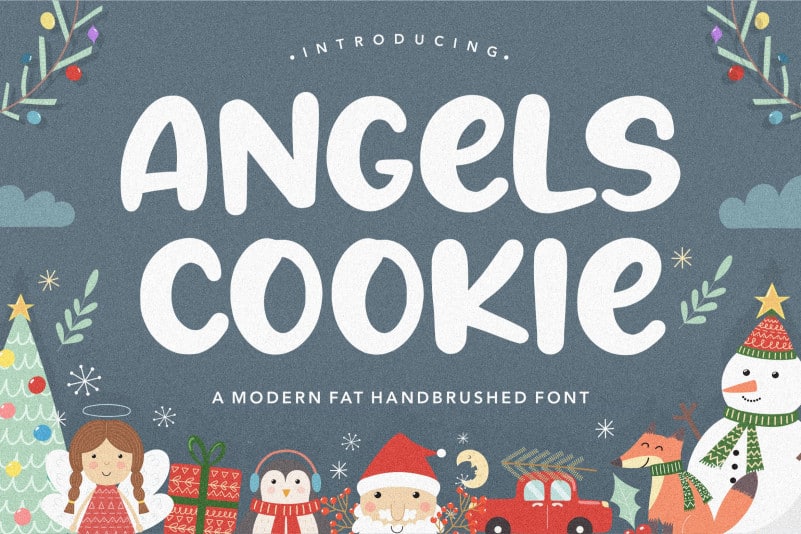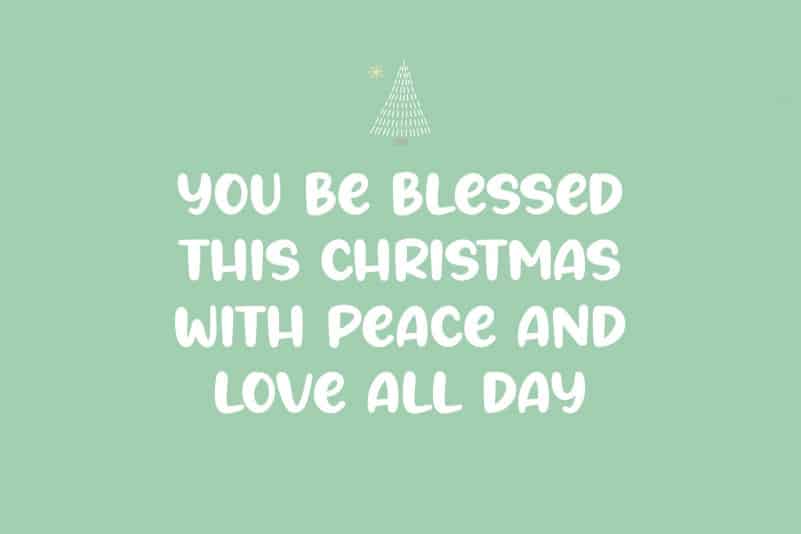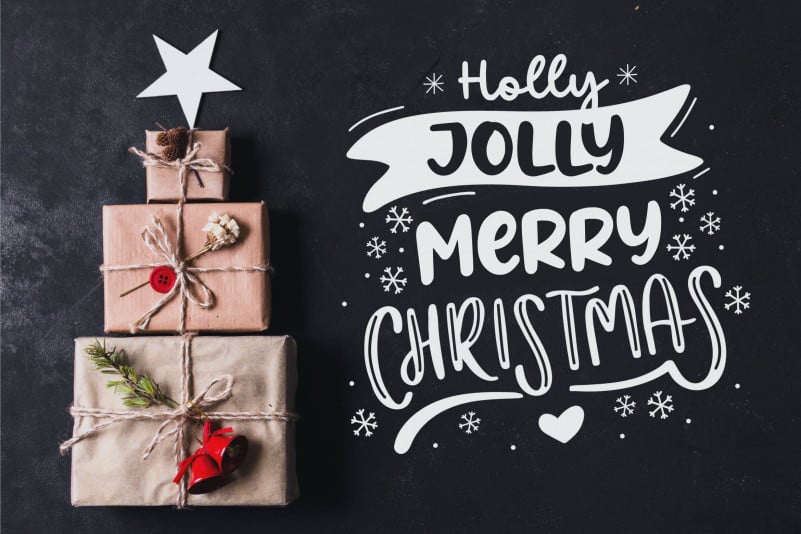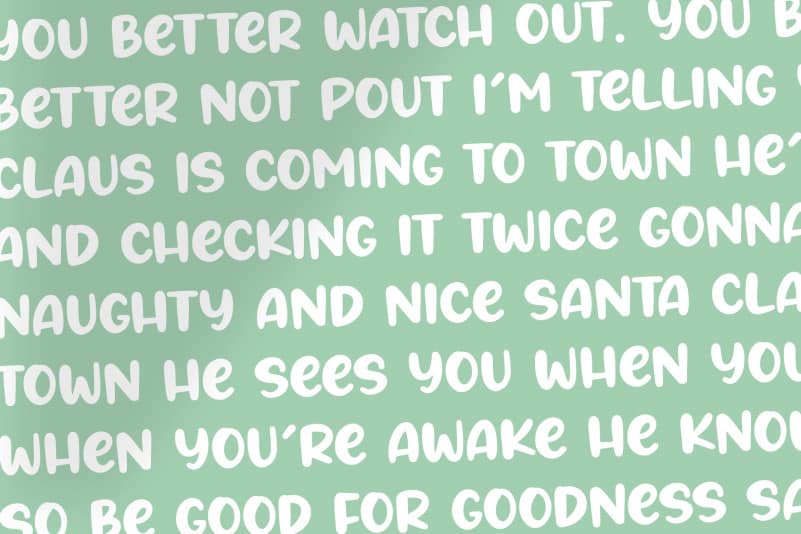
Angels Cookie Modern Fat Handbrushed Font
Proudly Present, Angels Cookie Modern Fat Handbrushed Font.
Angels Cookie is a Modern Fat Handbrushed Font.
This font is perfect for product packaging, branding project, megazine, social media, wedding, or just used to express words above the background.